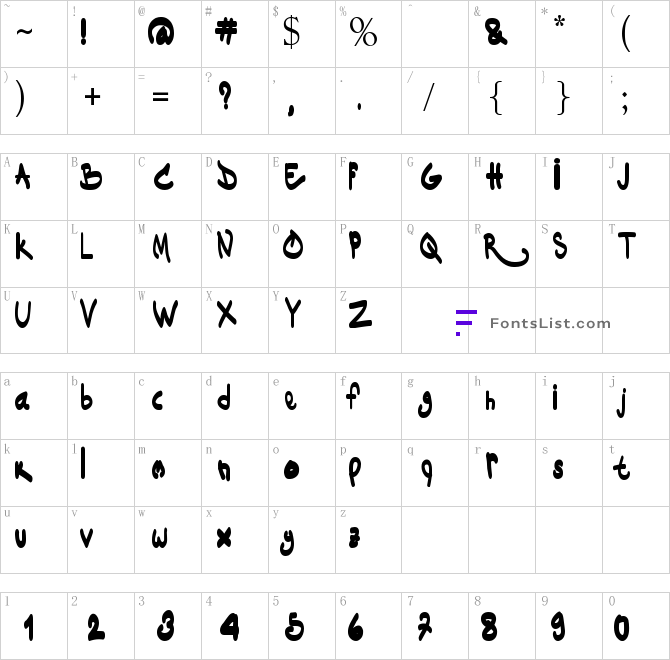
- Font Name:Dakinizazi
Dakinizazi.ttf is a very beautiful artistic font, Dakinizazi.ttf is widely used in the design and printing of various books and pictures,Dakinizazi.ttf has a strong visual impact,Dakinizazi.ttf is a commonly used font in newspapers, magazines and books, and is used in posters, e-commerce Poster design, store design, logo design, font design and other fields.Dakinizazi.